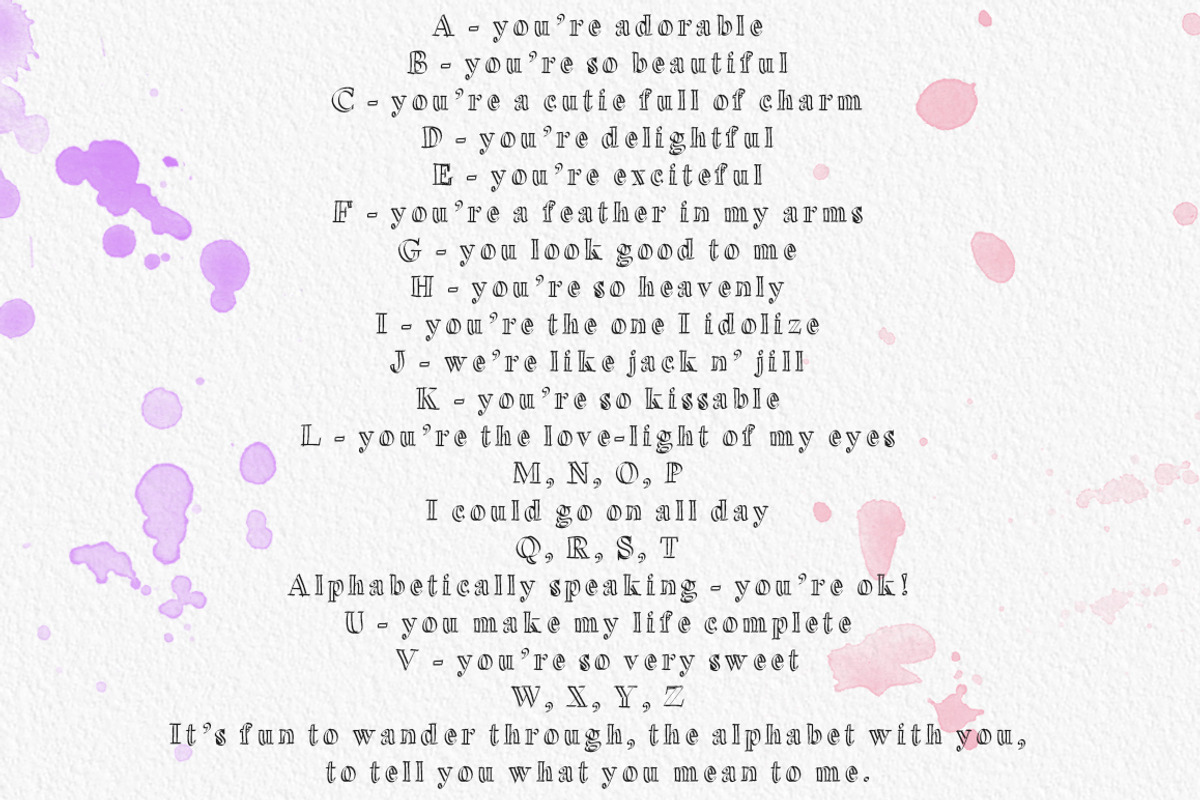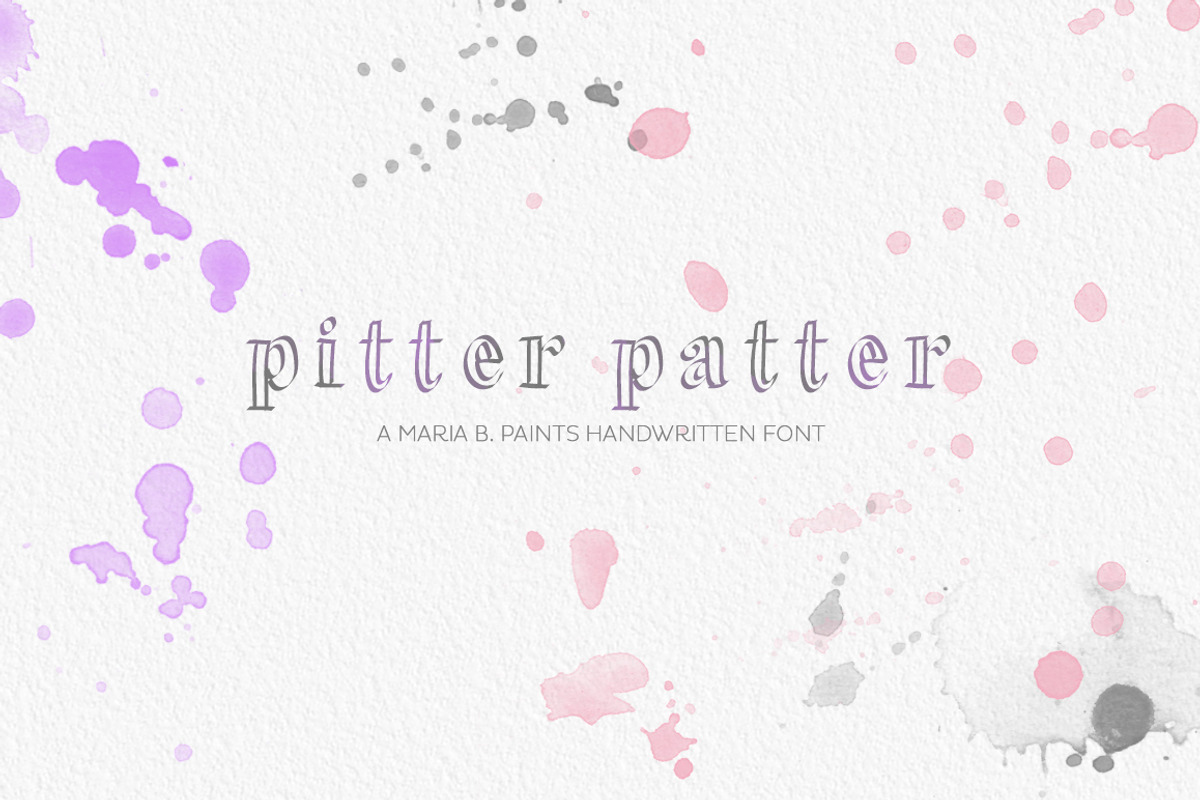
Handwritten Font - Pitter Patter
Handwritten Font - Pitter Patter by Maria B. Paints is a font selected for branding, posters, packaging, typography.
Why Handwritten Font - Pitter Patter is worth a look
Handwritten Font - Pitter Patter by Maria B. Paints fits naturally into Branding, posters, packaging, typography.